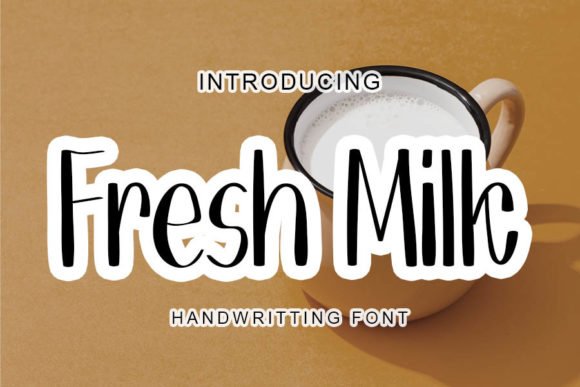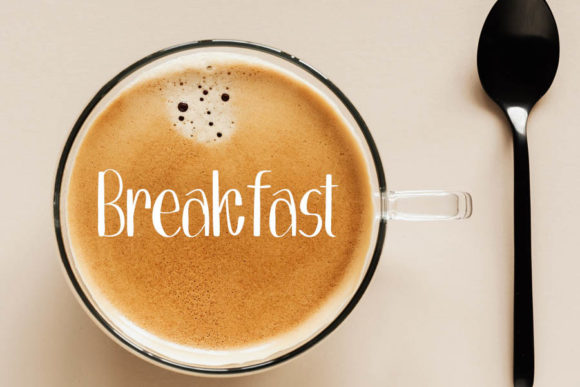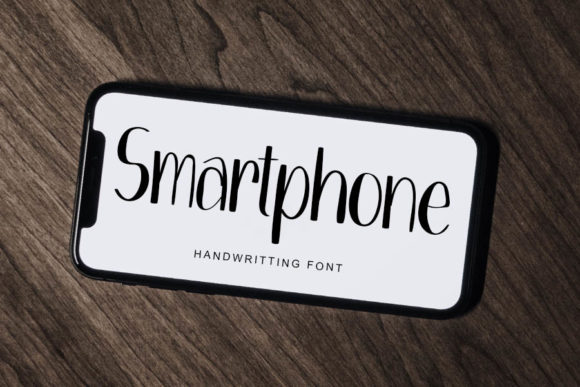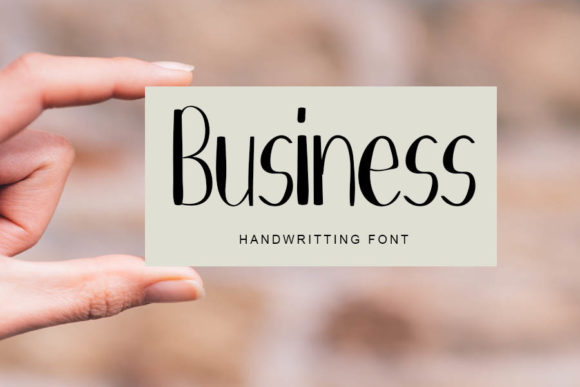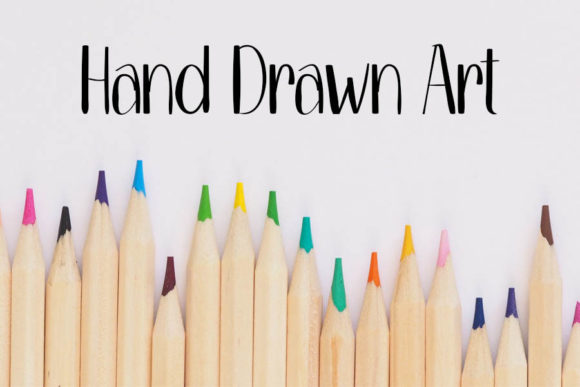
Handwritten Charm: The Power of Fresh Milk Font
As I stood in front of the chalkboard, marker in hand, I couldn’t help but feel a sense of nostalgia wash over me. The smell of chalk and the sound of screeching chalk on the board brought back memories of lazy summer afternoons spent scribbling notes and doodling cartoons. It’s in moments like these that I appreciate the value of authentic, handwritten fonts – like the Fresh Milk Font – that bring a personal touch to our designs.
The Fresh Milk Font is a beautifully crafted handwritten font designed specifically for chalkboard quotes and teaching materials. Its unique, hand-written look and feel will add a touch of realism to your designs, making them feel more personal and engaging. Whether you’re a teacher, a designer, or simply a creative enthusiast, the Fresh Milk Font is a valuable addition to your toolkit.
Fresh Milk Font Key Features
- Unique Characteristics: The Fresh Milk Font features a unique blend of modern and traditional elements, creating a distinctive and eye-catching look.
Designer Review: Fresh Milk Font
Overall, I think Fresh Milk Font has some great qualities that make it a solid choice for certain designs, but it’s not perfect. Let’s dive into what works well and what doesn’t.
- Unique and modern design: Fresh Milk Font has a distinct look that’s perfect for brands and designers looking to make a statement.
- High-resolution glyphs: The font’s high-resolution glyphs ensure that text remains crisp and clear even at larger sizes.
- Multi-language support: Fresh Milk Font supports a wide range of languages, making it a great choice for global brands.
- Lack of versatility: While Fresh Milk Font is great for modern designs, it may not be the best choice for more traditional or classic designs.
- Not ideal for body text: The font’s bold and modern design can make it difficult to read at smaller sizes or for extended periods of time.
Fresh Milk Font is a solid choice for designers looking for a modern and unique font. While it may not be perfect for every design, it’s a great addition to any font library. With its high-resolution glyphs and multi-language support, it’s a great choice for brands and designers looking to make a statement. Just be mindful of its limitations and use it wisely.
Tips for Getting the Most Out of Fresh Milk Font
For the best results, use Fresh Milk Font in conjunction with a clean and modern design aesthetic. Experiment with different font sizes, colors, and arrangements to create visually appealing text elements.
Fresh Milk Font is ideal for use in branding, packaging design, and digital marketing materials. Its unique and playful style makes it perfect for creating eye-catching and memorable designs.